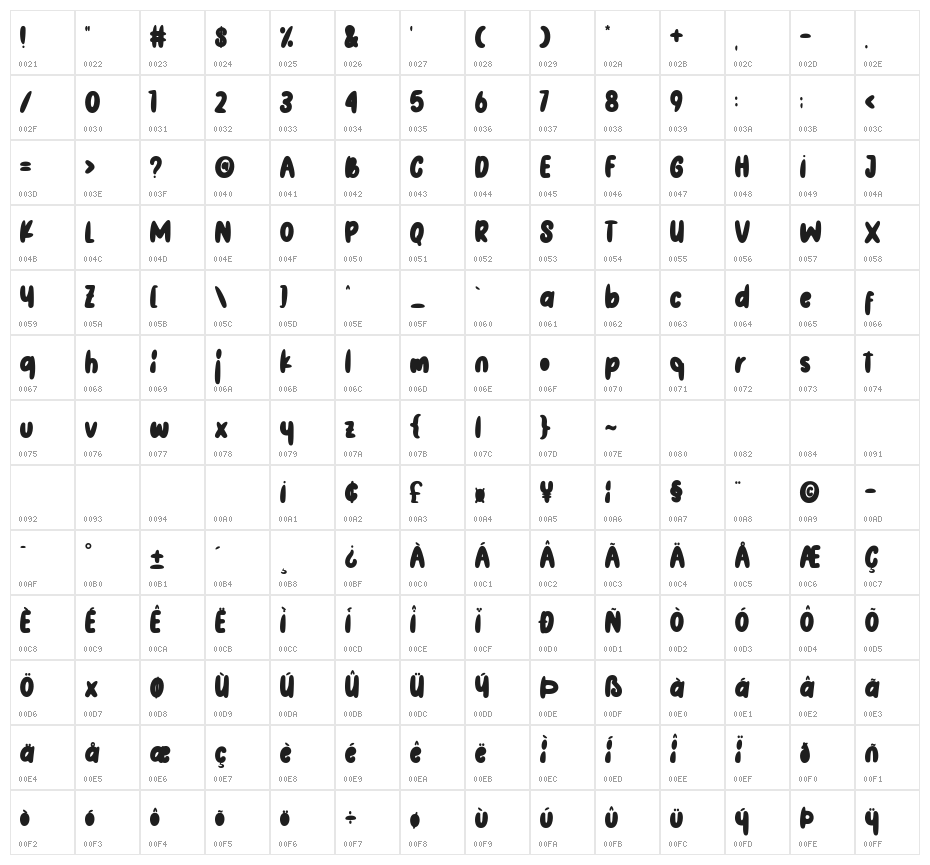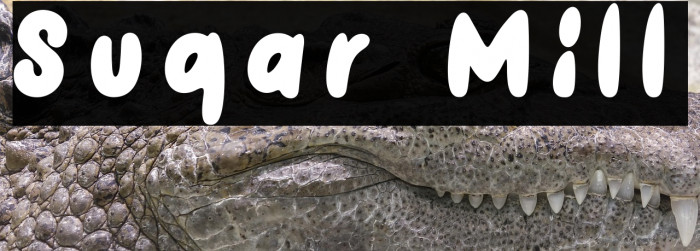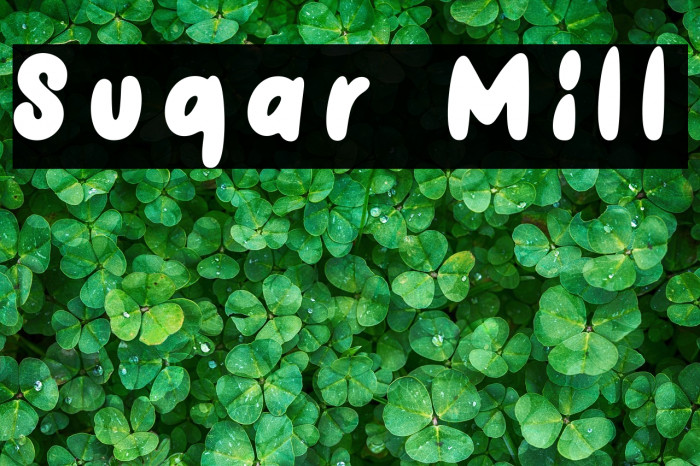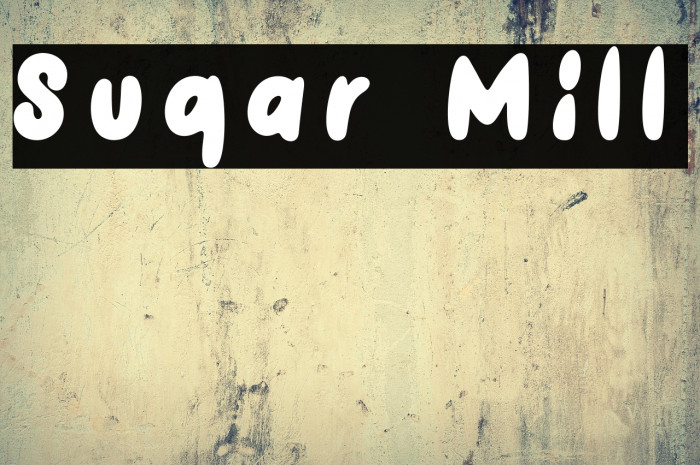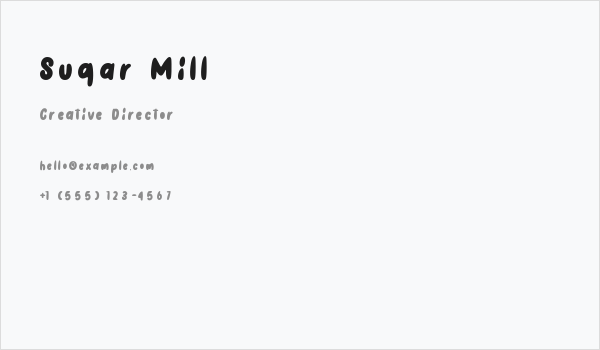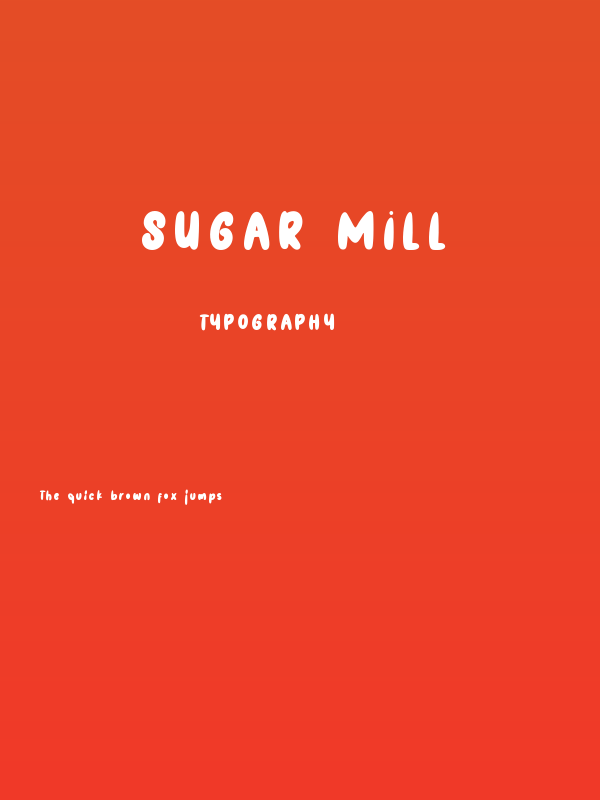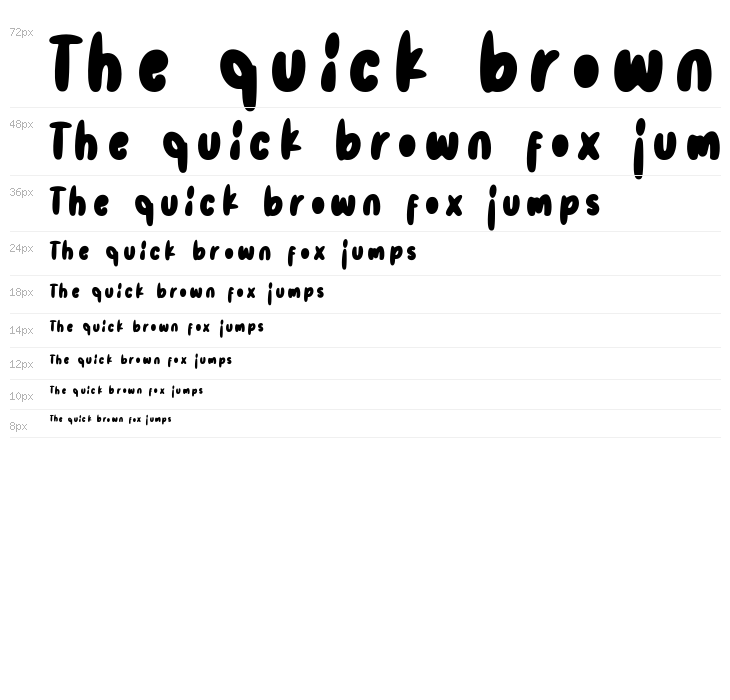
Sugar Mill Font
Sugar Mill Description
This playful and bold font features rounded, bubbly characters that exude a sense of fun and creativity. The letters are thick and have a slightly irregular shape, giving them a hand-drawn appearance. The uppercase and lowercase letters maintain a consistent style, with the uppercase being slightly larger and more pronounced. Numbers and special characters are designed to match the playful aesthetic, making them suitable for a variety of creative projects. The font's unique style makes it stand out, perfect for capturing attention in headlines or logos.
| Overall Style | Playful, Creative |
| Proposed Projects | Ideal for children's books, playful branding, event posters, and creative social media graphics. |